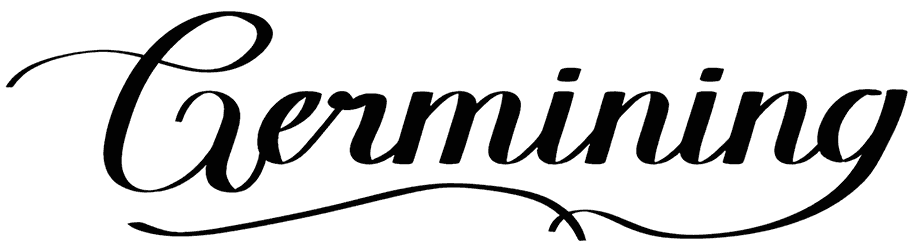
Germining Font
Germining is a cursive font that creates a natural and very friendly vibe with thin and curved letters. This is a perfect option if you want to use it for a logo or an invitation card and you want to make your way into people’s hearts.
In the way of doing that this font provides you with both the uppercase and lowercase of the alphabet, although you are not gonna find the numbers and the punctuation marks in this collection.